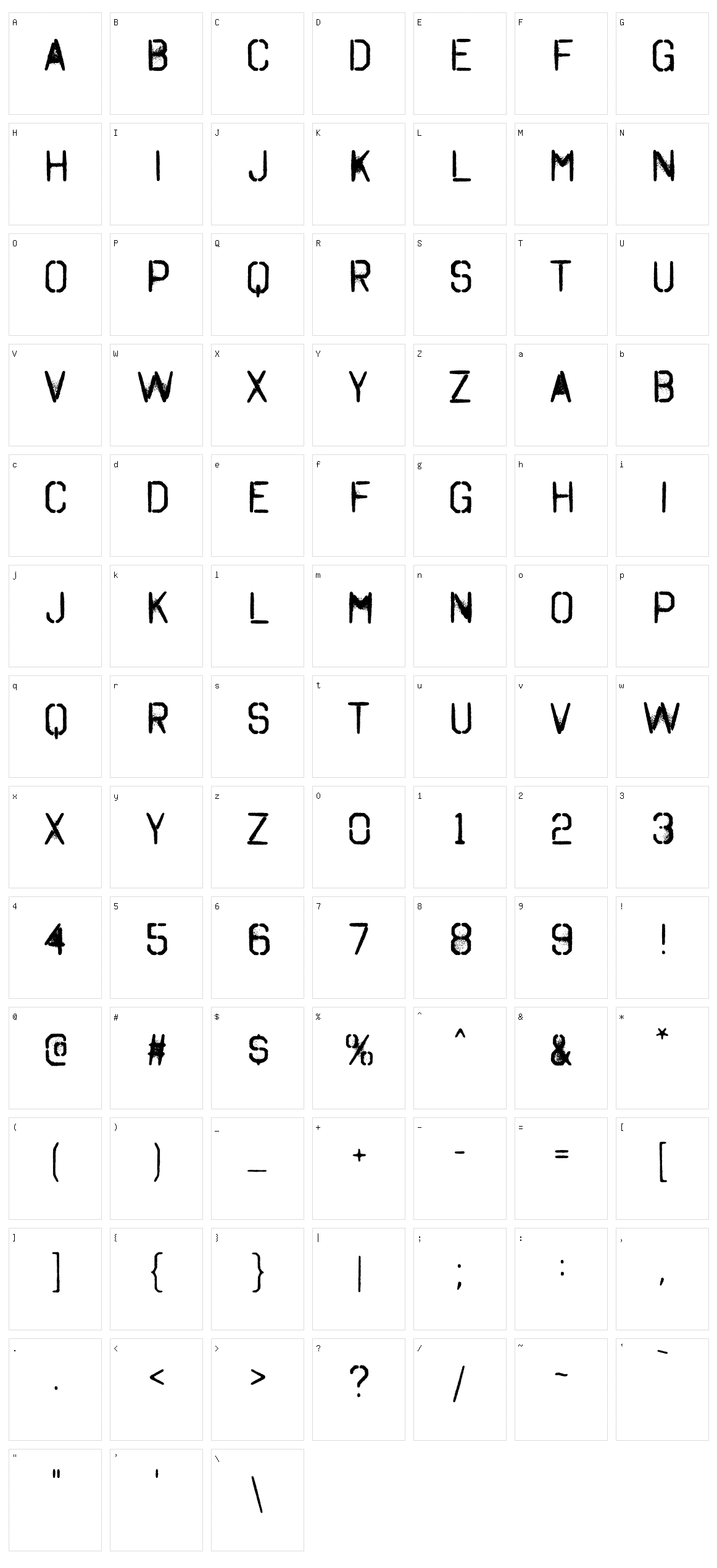
The free font Octin Spraypaint Free is carefully designed by Typodermic Fonts, showcasing a thoughtful balance of creativity and usability and falls under the Stencil font style. When you download the ZIP file, it contains only 367.65 KB of font files, making it lightweight and quick to download. Please review the license details below to understand permitted usage and distribution rights. If license information is not available, we recommend using this font for personal projects only or contacting the author directly for commercial usage permissions.